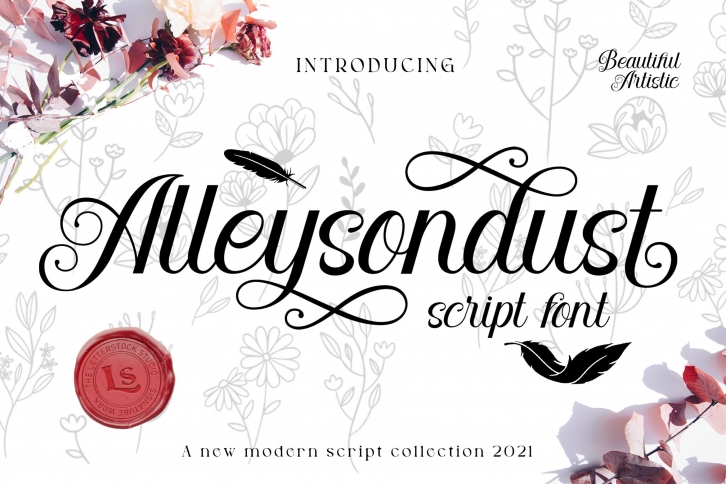
Allysondust is a trendy and unique font with an authentic style. It was designed by Gumacreative and it's a great choice for creative people who need such a font. It was released on August 17, 2021 and the file size is 13.72 MB. Allysondust will add an organic vibe to any design idea!